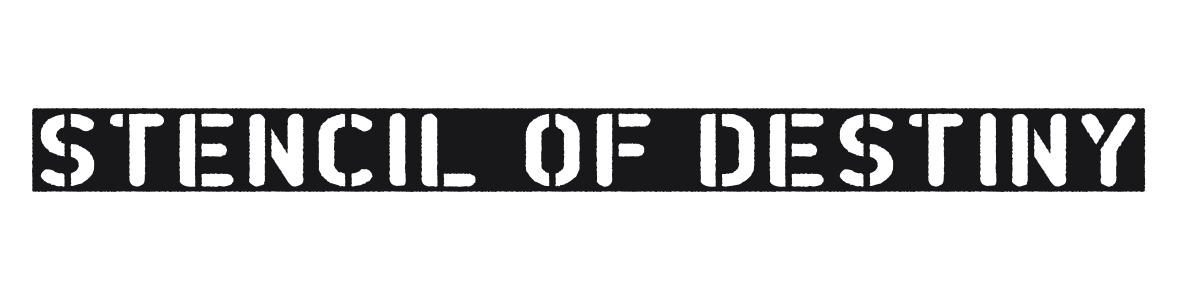
Stencil of Destiny
Stencil of Destiny is a heavy, uppercase stencil face from Chequered Ink with a rough, distressed finish that gives it the look of spray-painted military markings on old crates or concrete. The bold letterforms carry a blunt, industrial authority, with enough wear and texture to feel like they've seen some use. Built for headlines, posters, and branding where you want something that reads as tough and utilitarian.